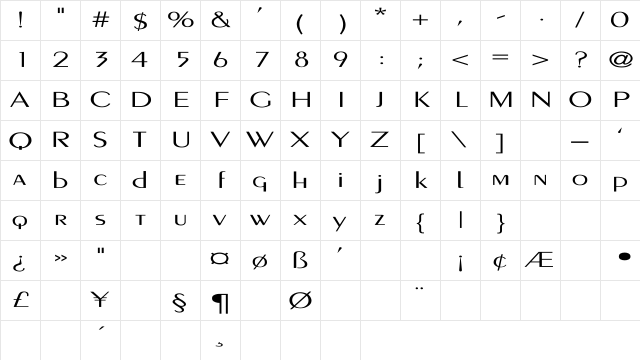
PEIGNOT-LIGHT-Thin Ex Regular Free Font
PEIGNOT-LIGHT-Thin Ex Regular
Design Context for PEIGNOT-LIGHT-Thin Ex
PEIGNOT-LIGHT-Thin Ex is a composed and adaptable typeface that performs quietly and consistently across a wide range of design contexts. Its slender proportions lend an understated elegance to any composition.